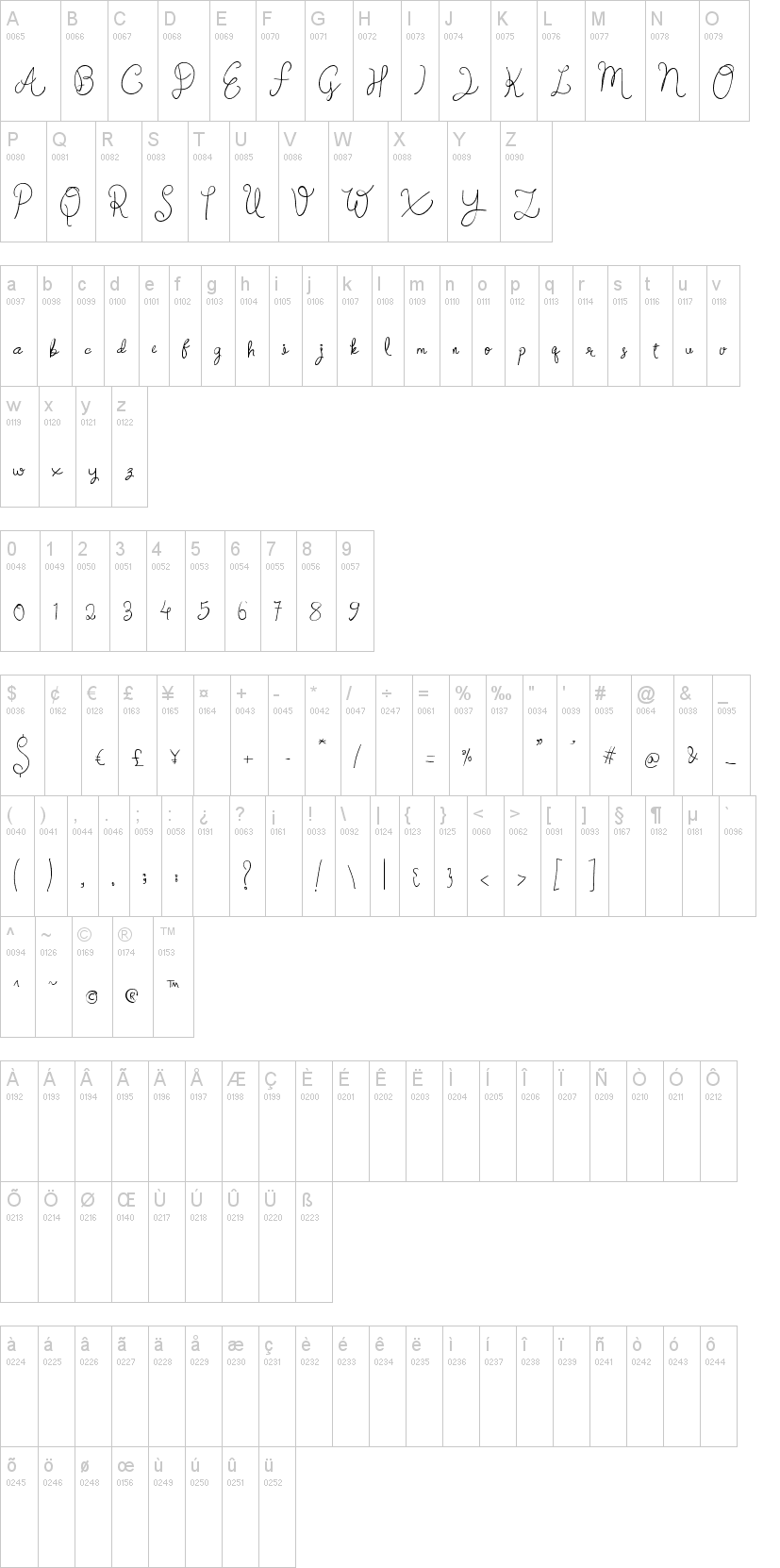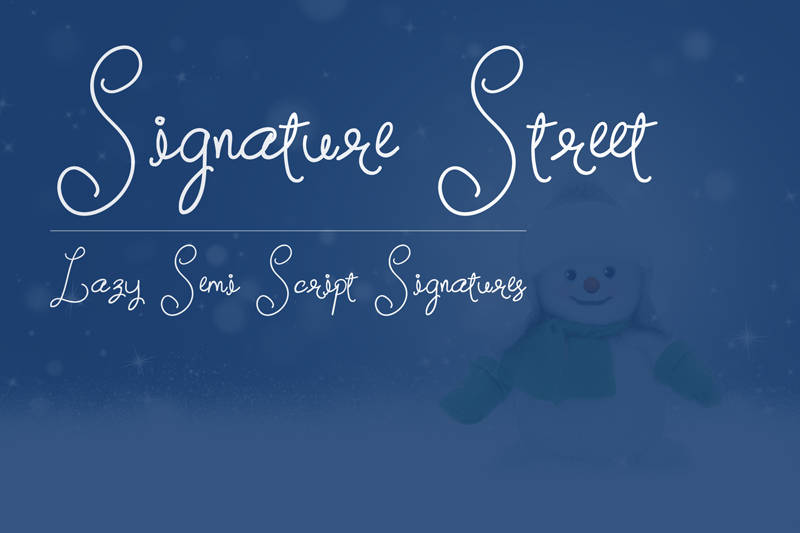
Signature Street
Note of the authorSignature Street is a new Semi Scrip Handwritten Lazy Street Signature Font,
It will Perfectly Fits for the Advertisement, Social Media Posts, Personal Notes and Handwriting projects.